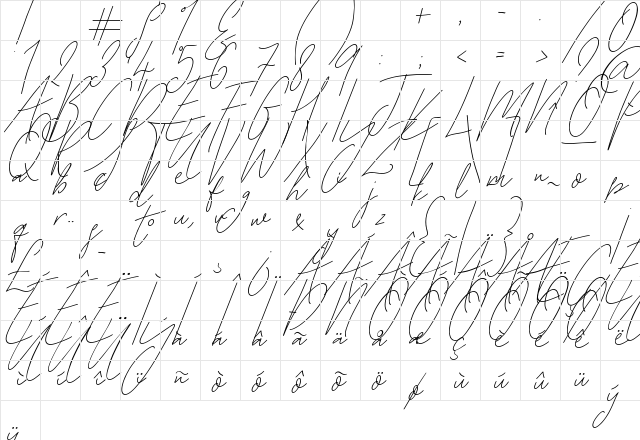
Song of the River Italic Regular
Design Context for Song of the River Italic
Song of the River Italic is a composed and adaptable typeface that performs quietly and consistently across a wide range of design contexts. The slanted form adds forward momentum and visual energy.